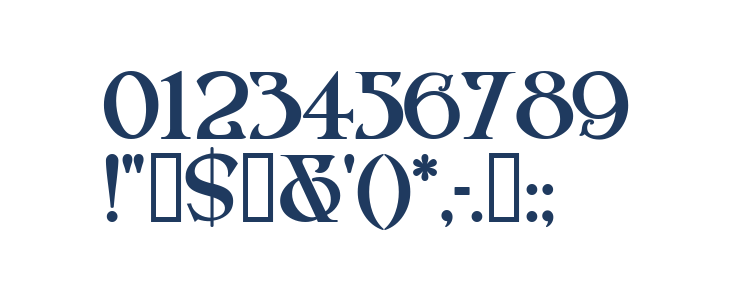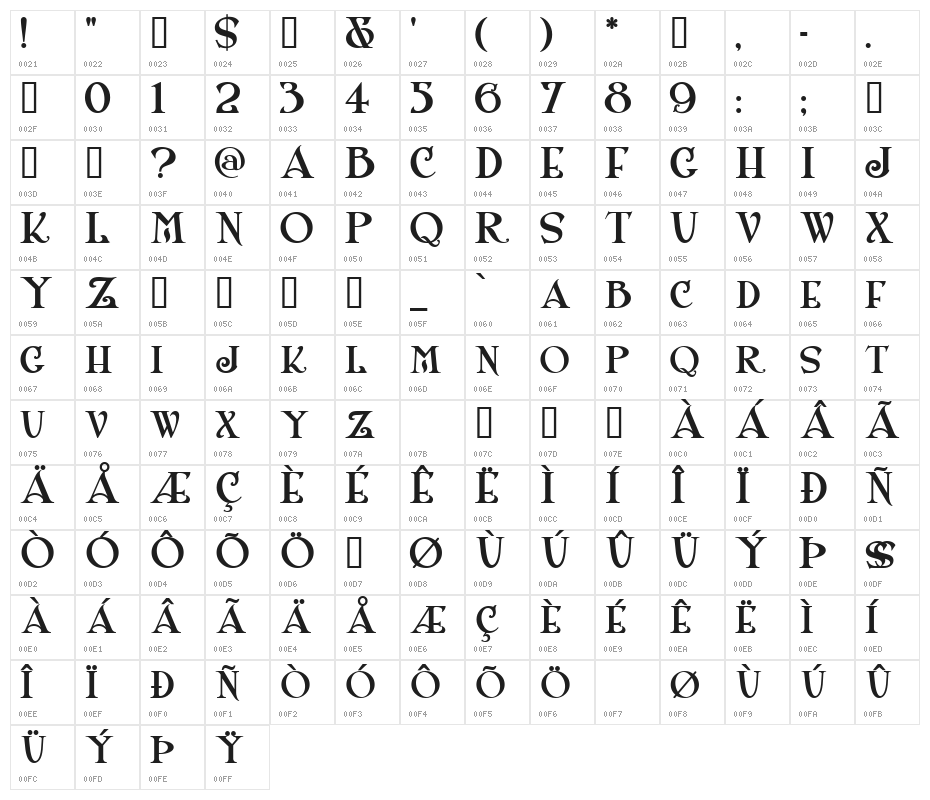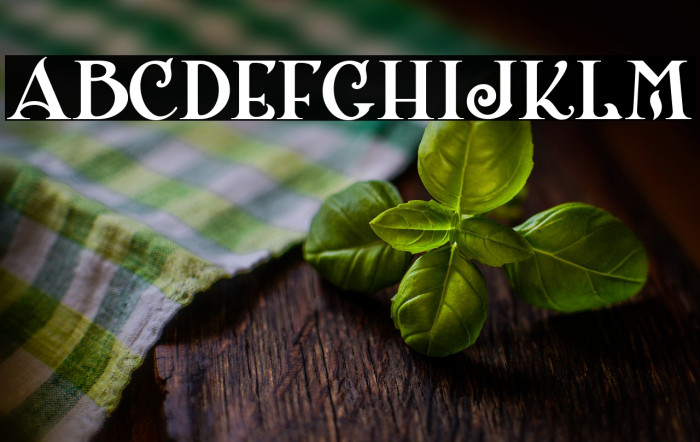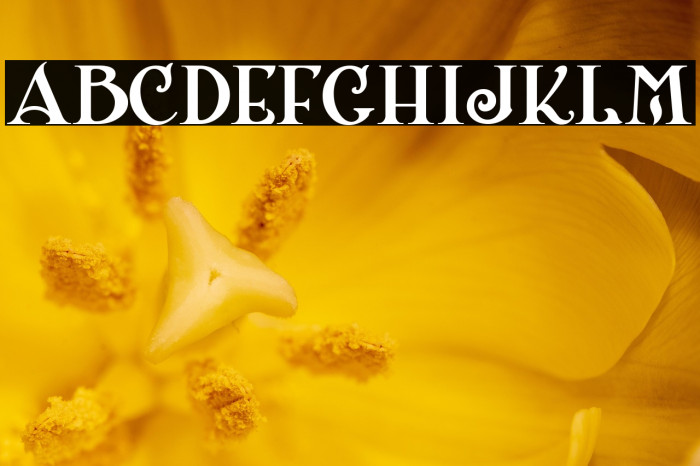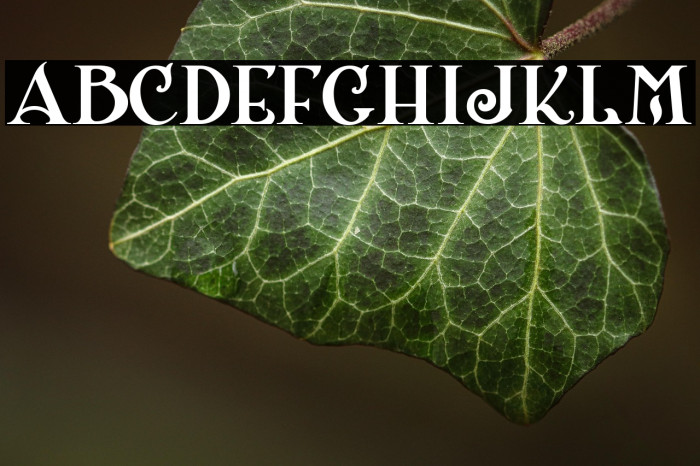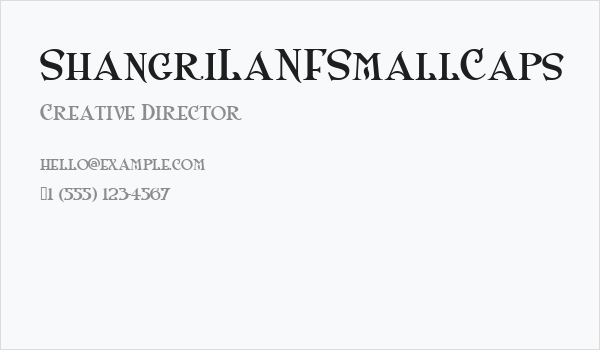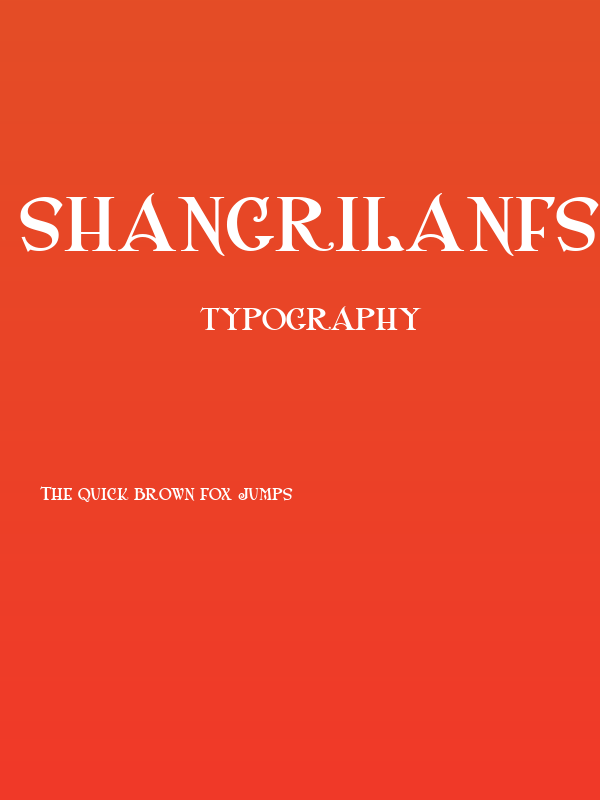
ShangriLaNFSmallCaps Font
ShangriLaNFSmallCaps Description
This font features a unique and decorative style with a strong presence. The characters are bold and exhibit a high contrast between thick and thin strokes, giving them a dramatic and eye-catching appearance. The serifs are pronounced, adding to the font's distinctive look. The uppercase letters have an elegant flair, while the lowercase letters maintain a consistent style. The numbers are equally bold and maintain the decorative theme. Special characters are designed with the same attention to detail, ensuring a cohesive look across all glyphs.
Proposed ProjectsIdeal for use in headlines, posters, branding, and any project requiring a strong visual impact.